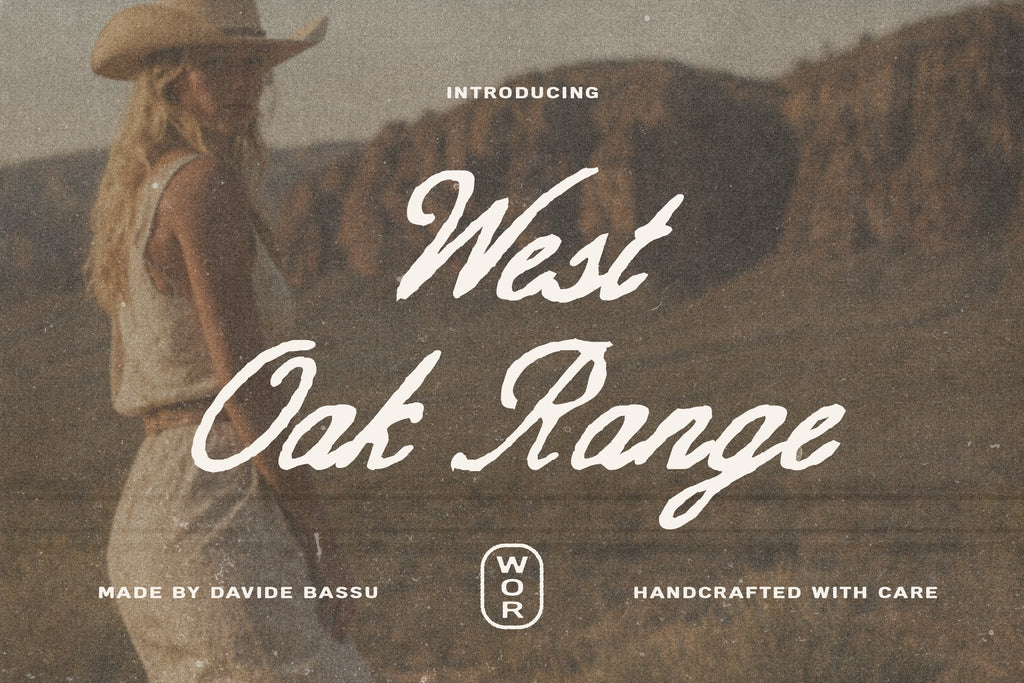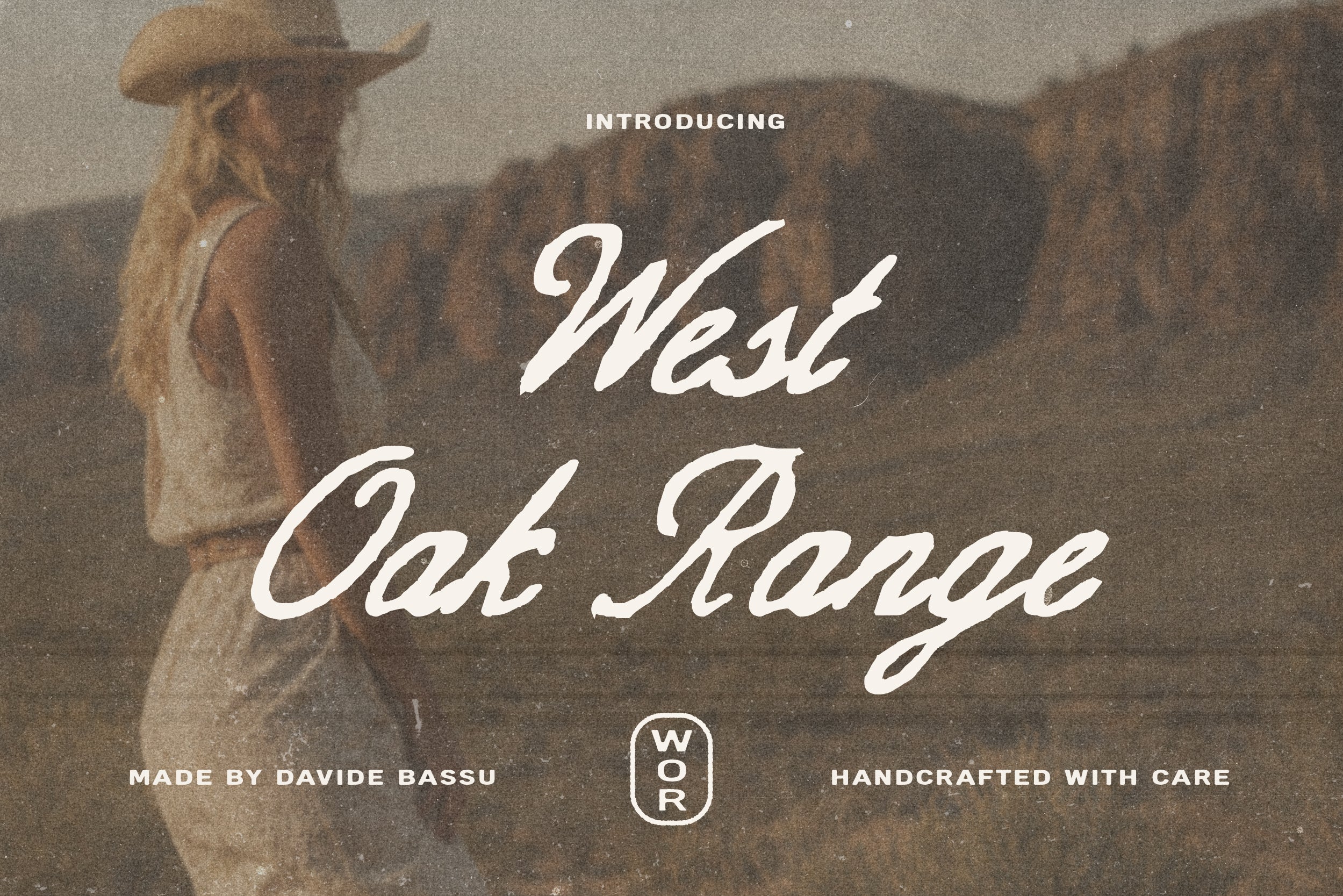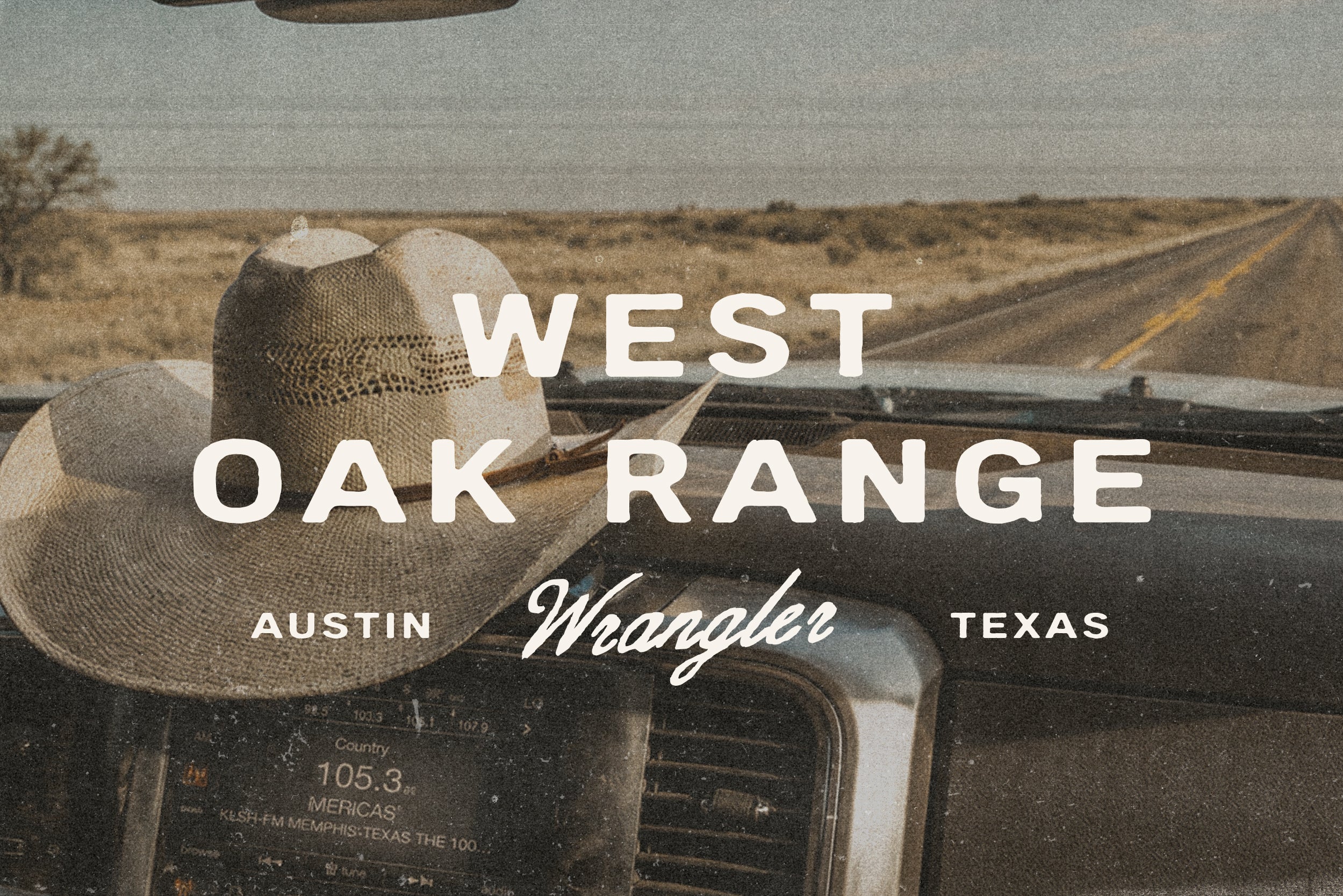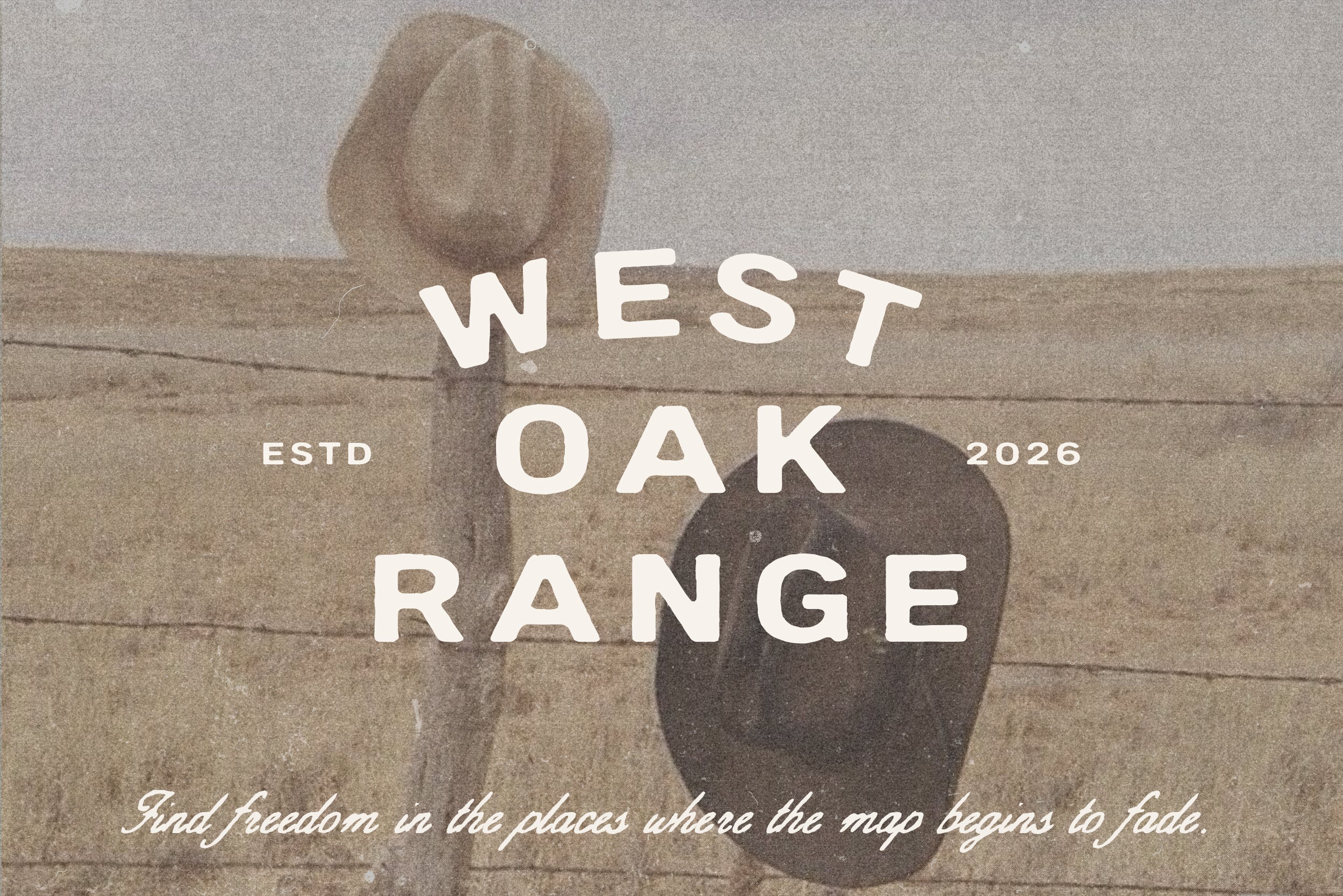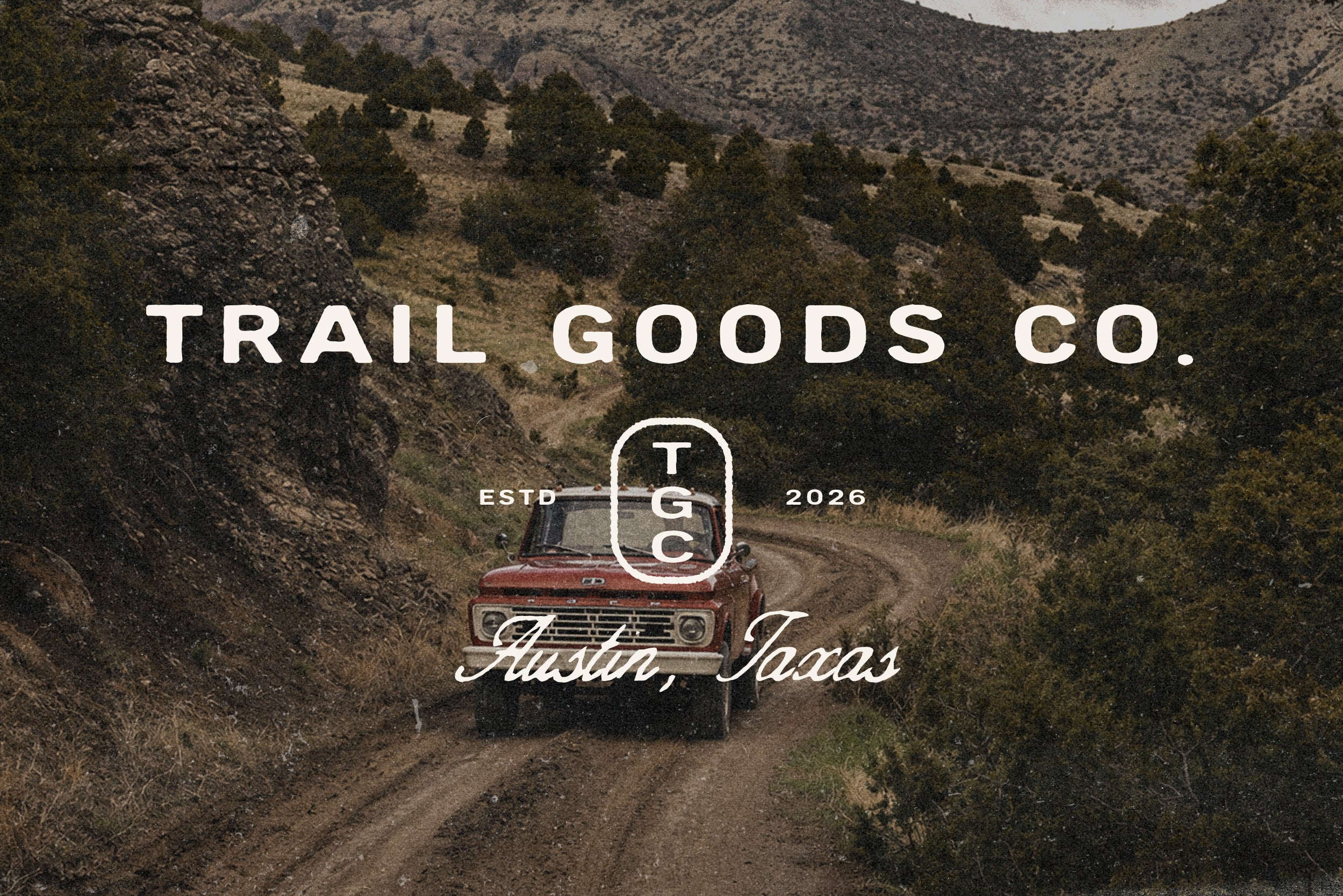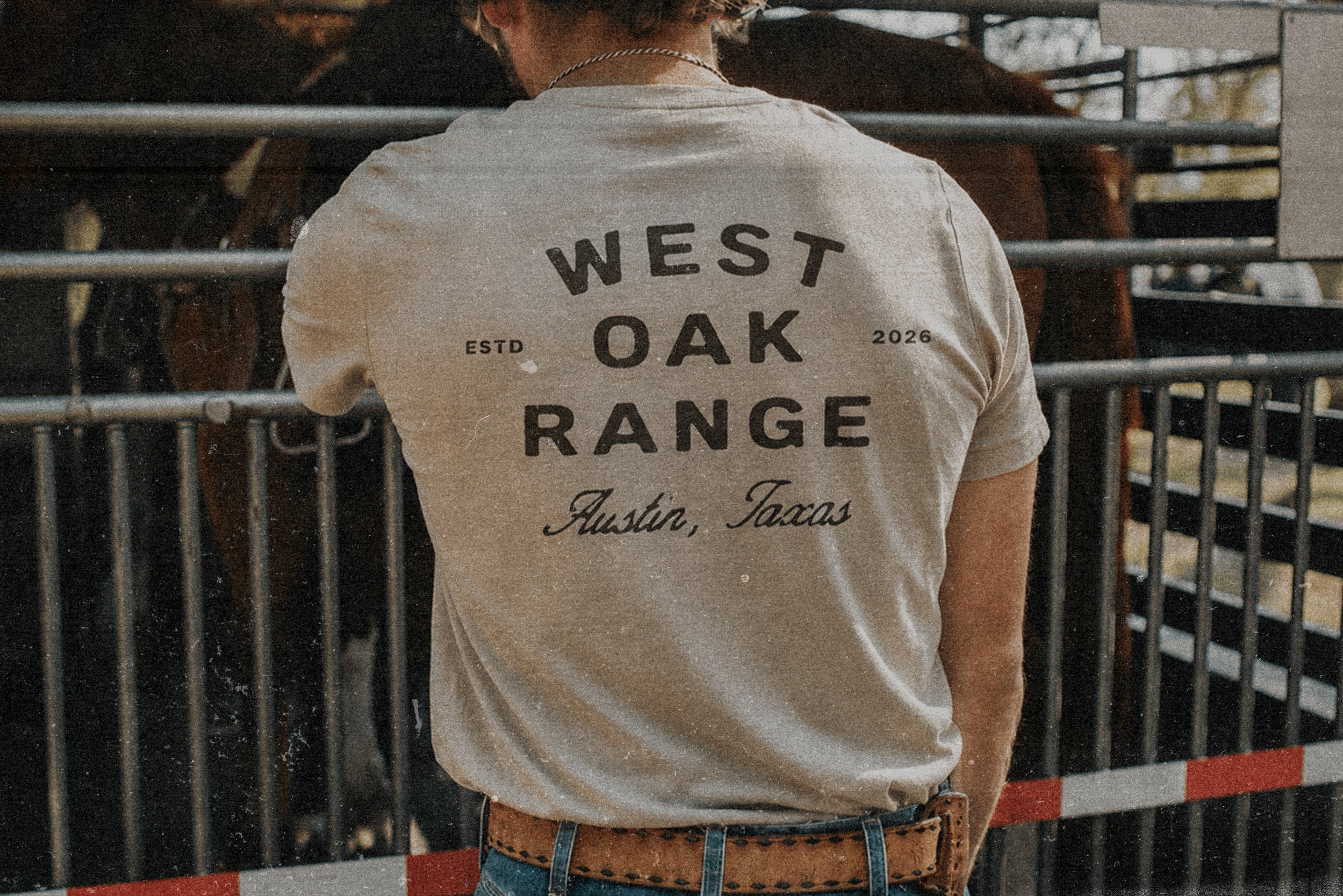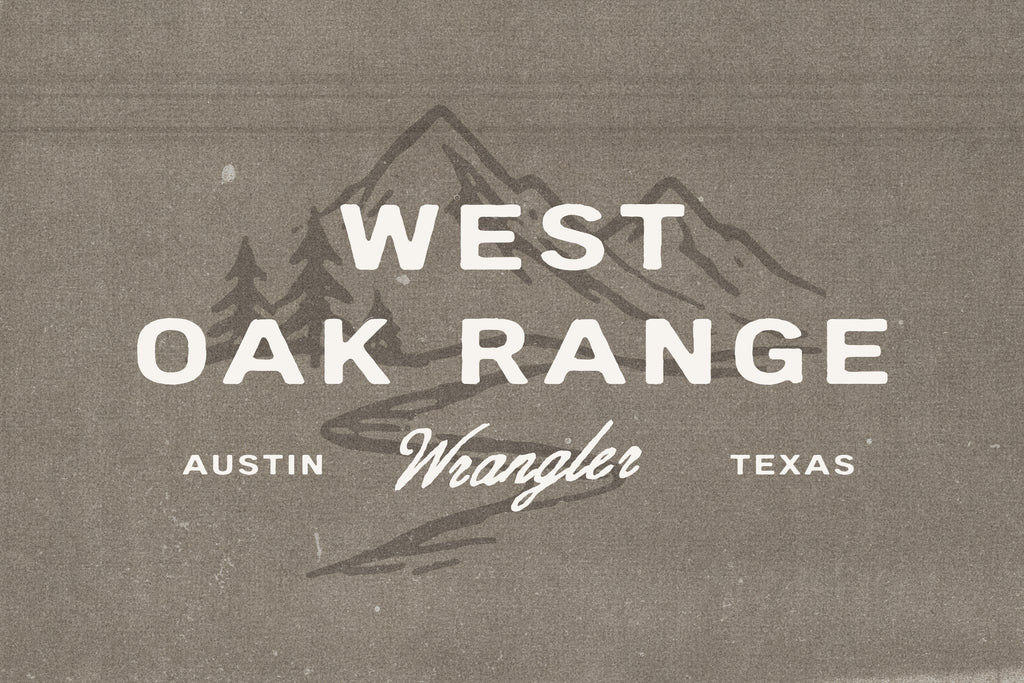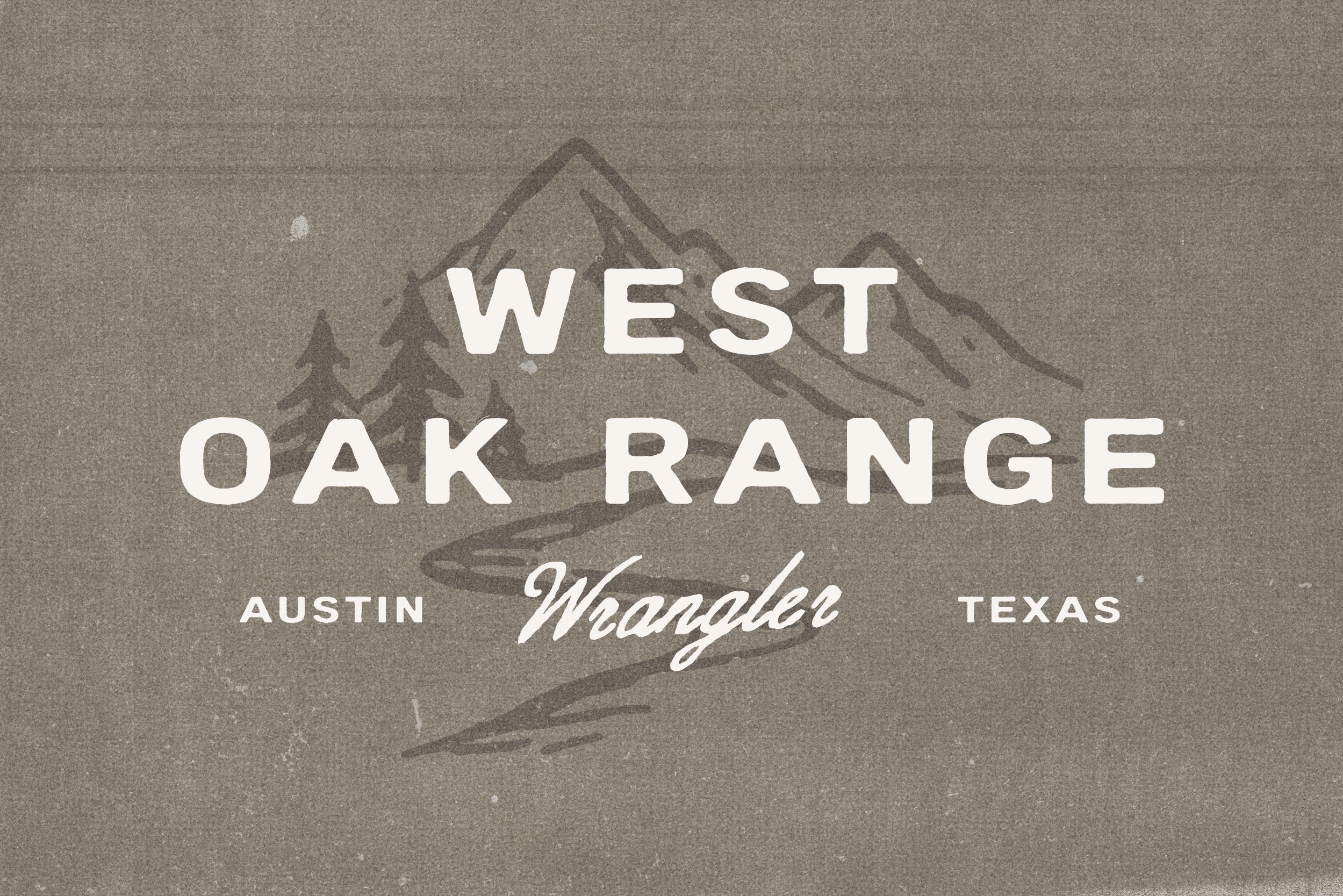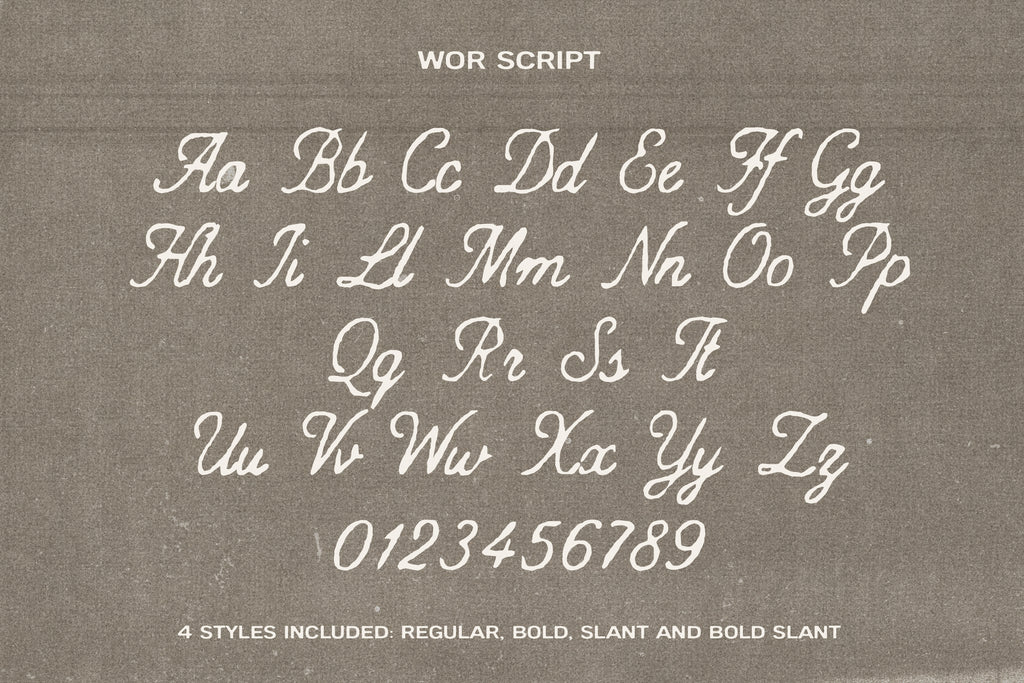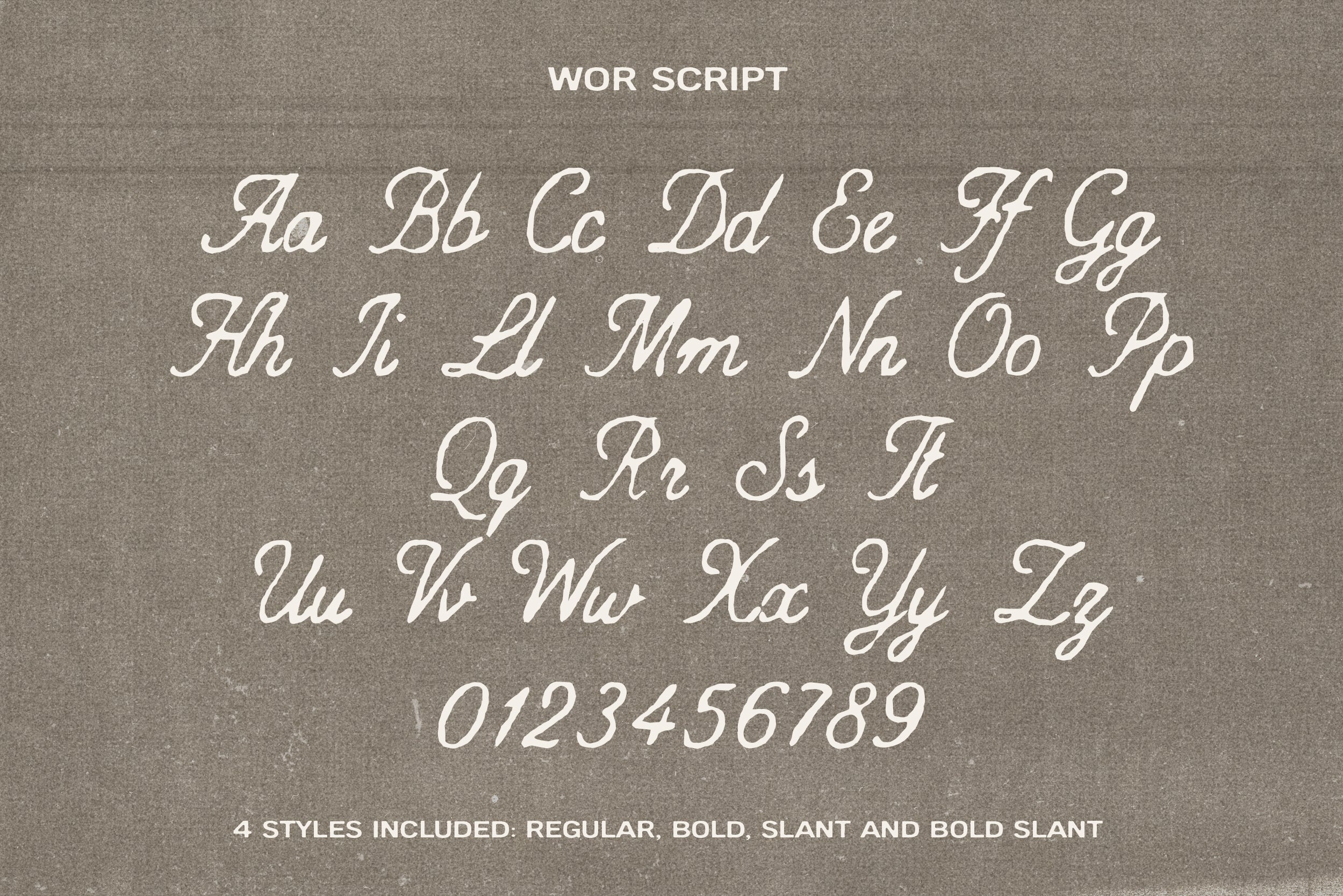
West Oak Range is a carefully crafted type collection inspired by contemporary western aesthetics, vintage Americana, and the spirit of life beyond the pavement. Built around a handcrafted script and a versatile sans serif family, it gives you everything you need to create distinctive logos, apparel graphics, packaging, and branding with confidence.
Originally designed for clothing brands, West Oak Range feels equally at home on coffee packaging, whiskey labels, outdoor products, merchandise, posters, and editorial layouts. The combination of expressive script lettering and a versatile sans serif makes it easy to build bold identities that feel authentic and timeless.
The collection includes the complete WOR Script family in Regular, Slant, Bold, and Bold Slant, alongside the WOR Sans family with nine carefully crafted styles covering everything from striking headlines to supporting typography and complete logo systems. Every font includes multilingual language support, numerals, punctuation, and a full set of essential glyphs, making West Oak Range a dependable toolkit for professional branding and design.